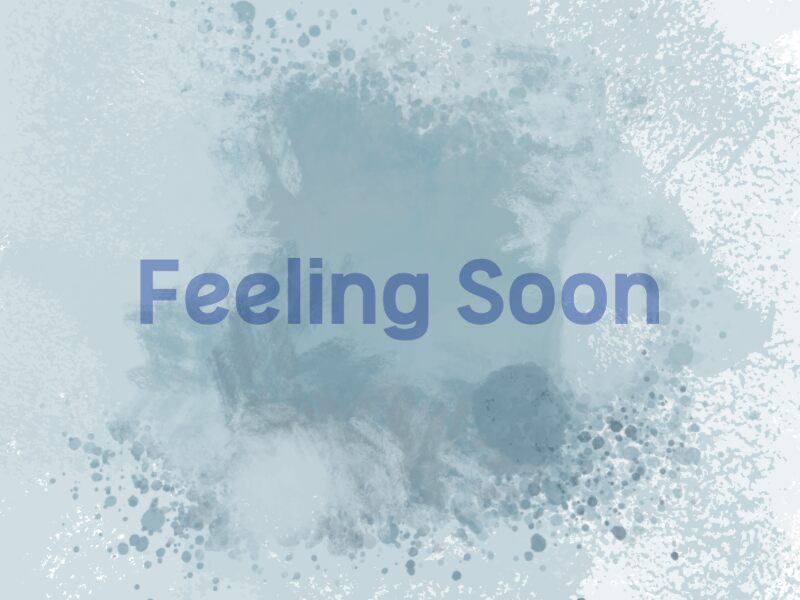
Feeling Soon
With its clean lines and modern aesthetic, Feeling Soon is a versatile sans serif font designed by wep. Its semi-light weight lends a delicate and elegant touch to any creative project.
Whether used for branding, advertising, or editorial design, this font adds a sense of sophistication and simplicity. Its minimalistic yet impactful style makes it suitable for a wide range of applications, from website design to packaging and social media graphics.
Feeling Soon's unique characteristics make it the perfect choice for those seeking a contemporary and timeless typeface to elevate their designs.
Whether used for branding, advertising, or editorial design, this font adds a sense of sophistication and simplicity. Its minimalistic yet impactful style makes it suitable for a wide range of applications, from website design to packaging and social media graphics.
Feeling Soon's unique characteristics make it the perfect choice for those seeking a contemporary and timeless typeface to elevate their designs.